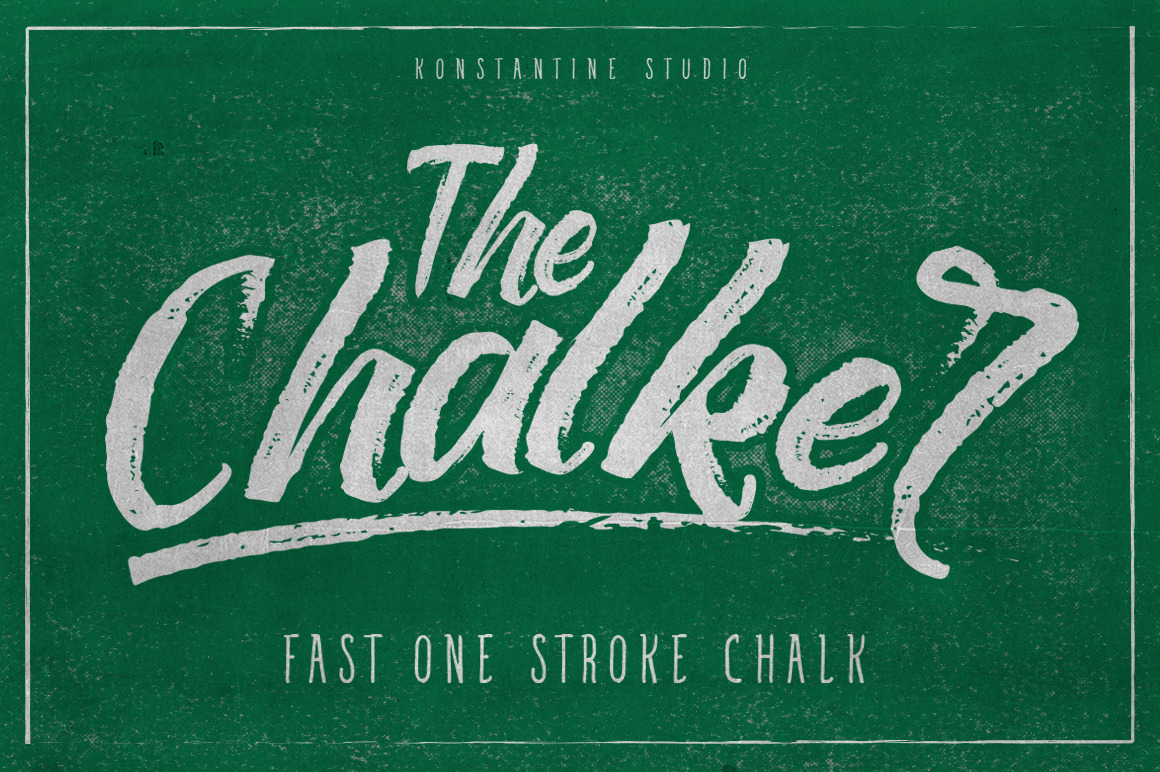
The Chalker Chalk lettering font
Say hello to Chalker!
A rough one stroke typeface with texture and chalk feels on it so you can get an "auto-chalk" feel in instant moves.